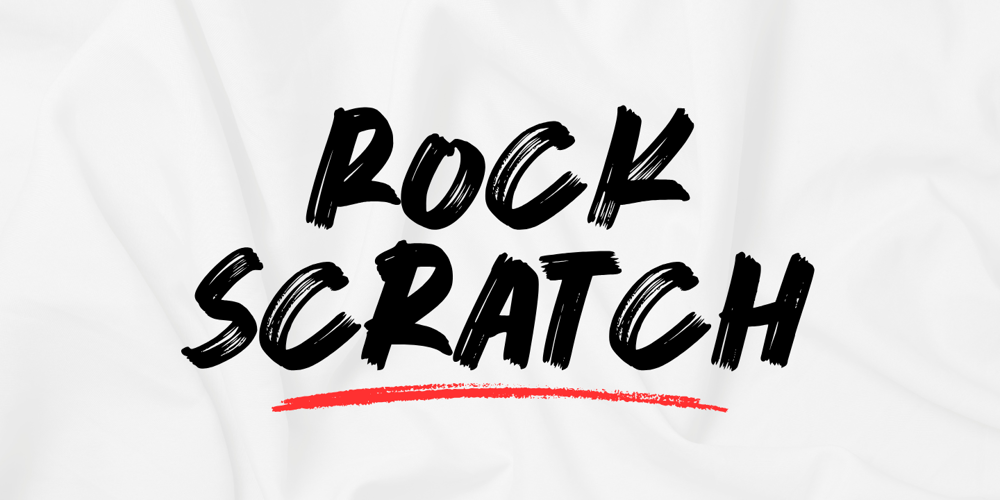
Rock Scratch Font Family was designed by Muhamad Yusron Billah and published by Sronstudio. Rock Scratch contains 1 styles and family package options. Rock Scratch is a bold and expressive handbrush font that captures raw energy and attitude. Perfect for posters, logos, apparel, and edgy designs needing a dynamic and handcrafted touch. Unleash creativity with Rock Scratch!Included: Upper & Lowercase Numeral & Punctuation PUA Encoded Multilingual support Simple Installation Work both on Mac and Windows Thank you very much ๐